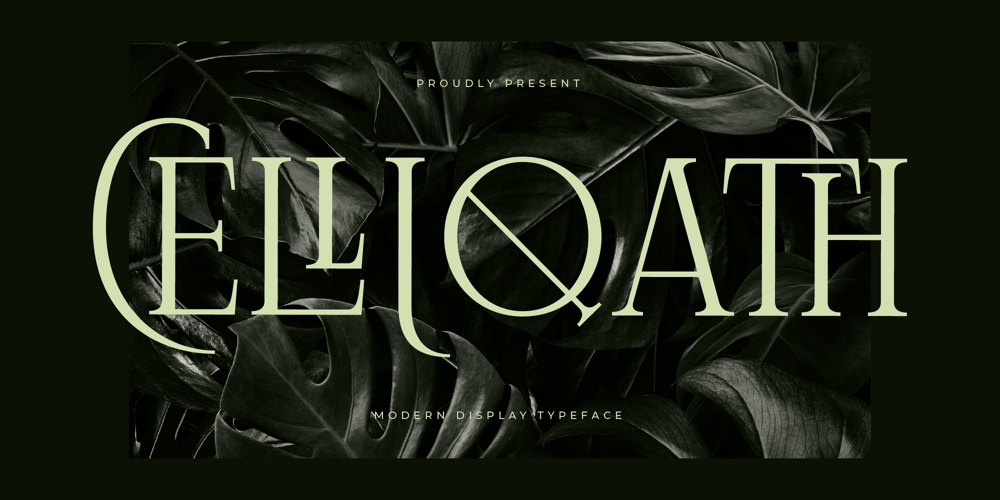
Celliqath Font Family was designed by Heru Utama Putra and published by Letterena Studios. Celliqath contains 2 styles and family package options. Proudly present Celliqath Typeface , created by Storytype,A serif modern and classic typeface that has own unique style & modern look.This typeface is perfect for an elegant & luxury logo, book or movie title design, fashion brand, magazine, clothes, lettering, quotes, and so much more.